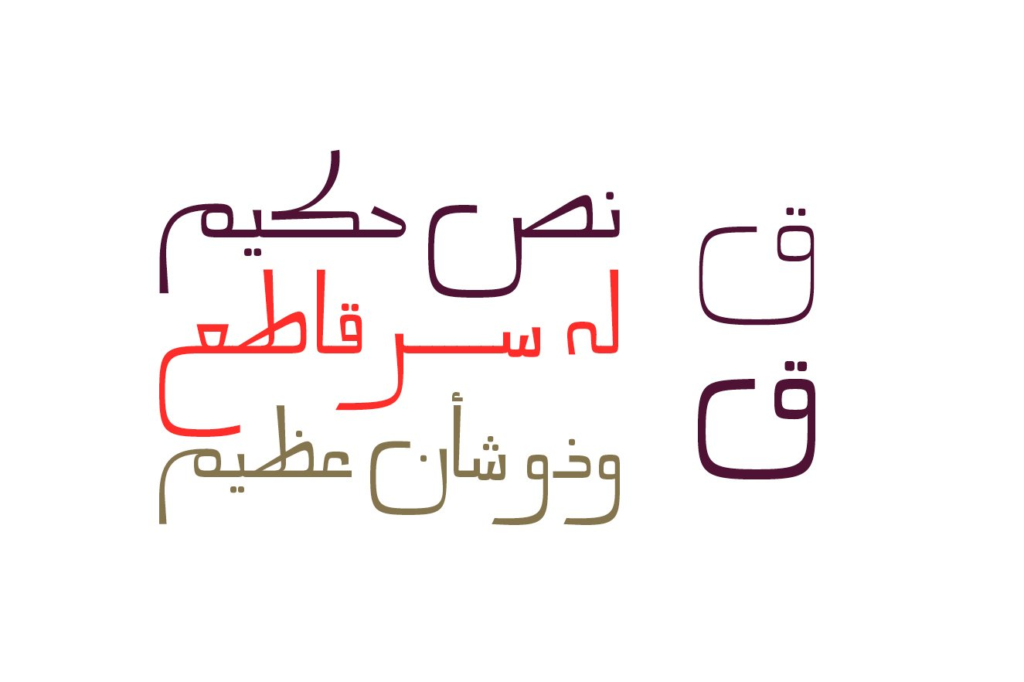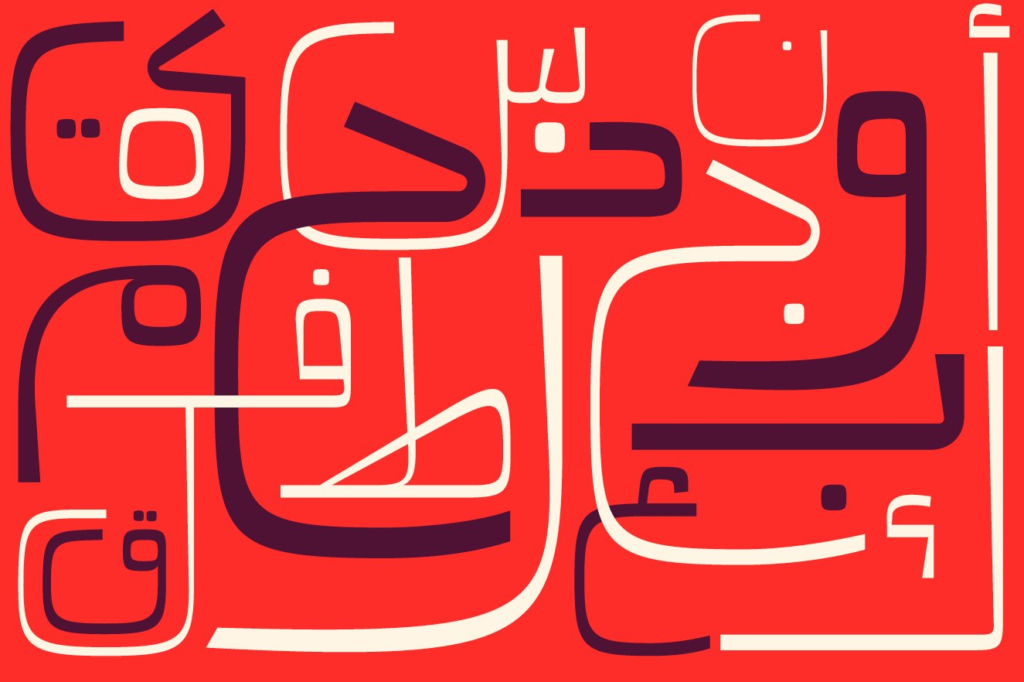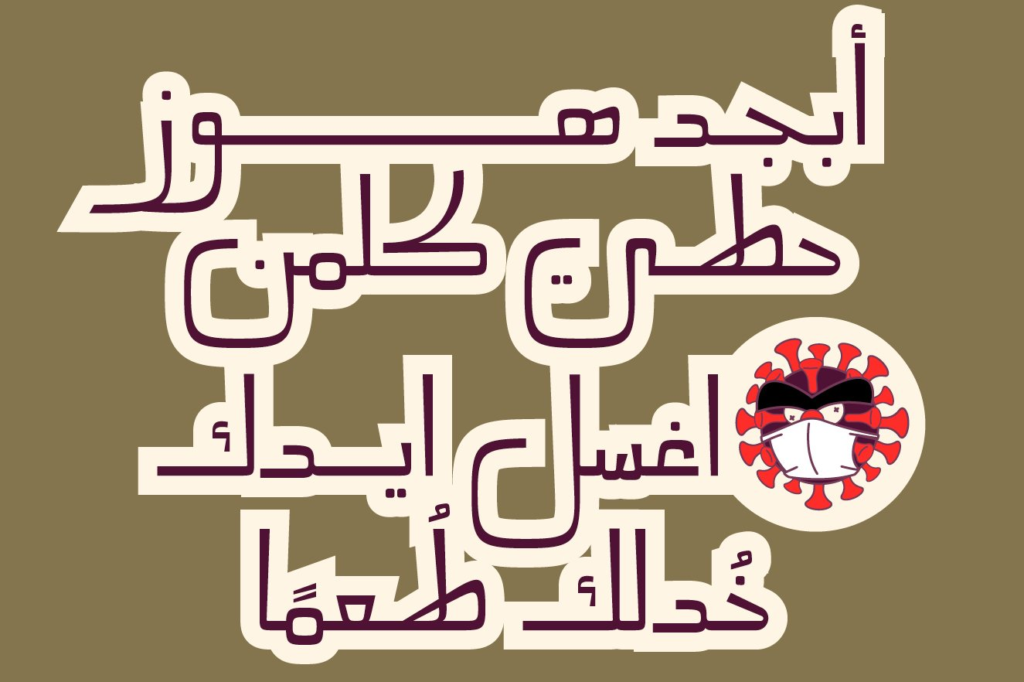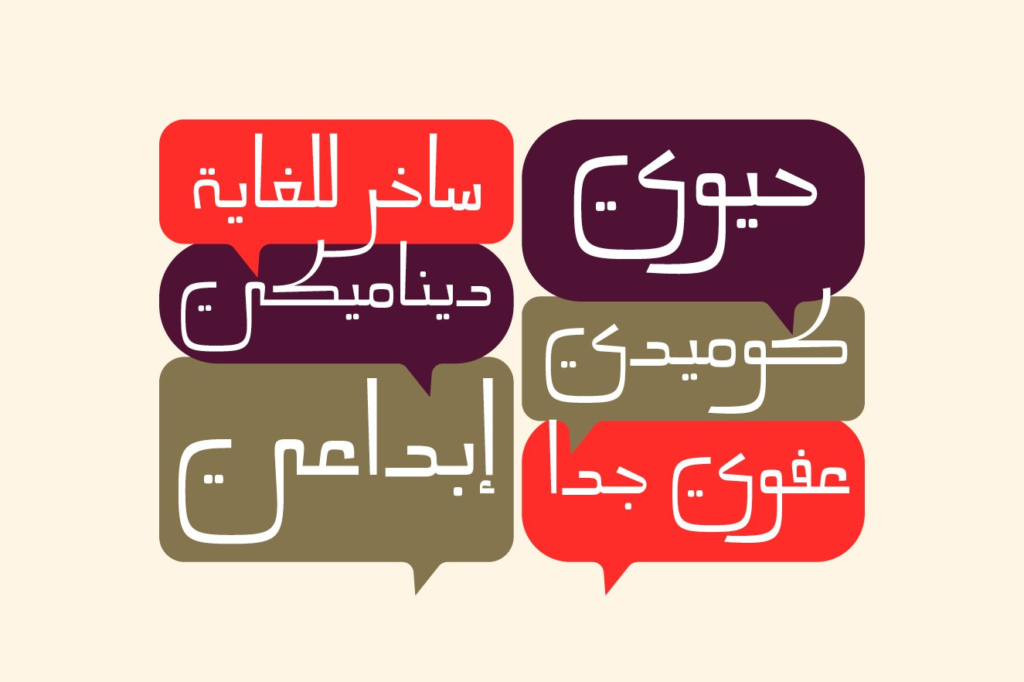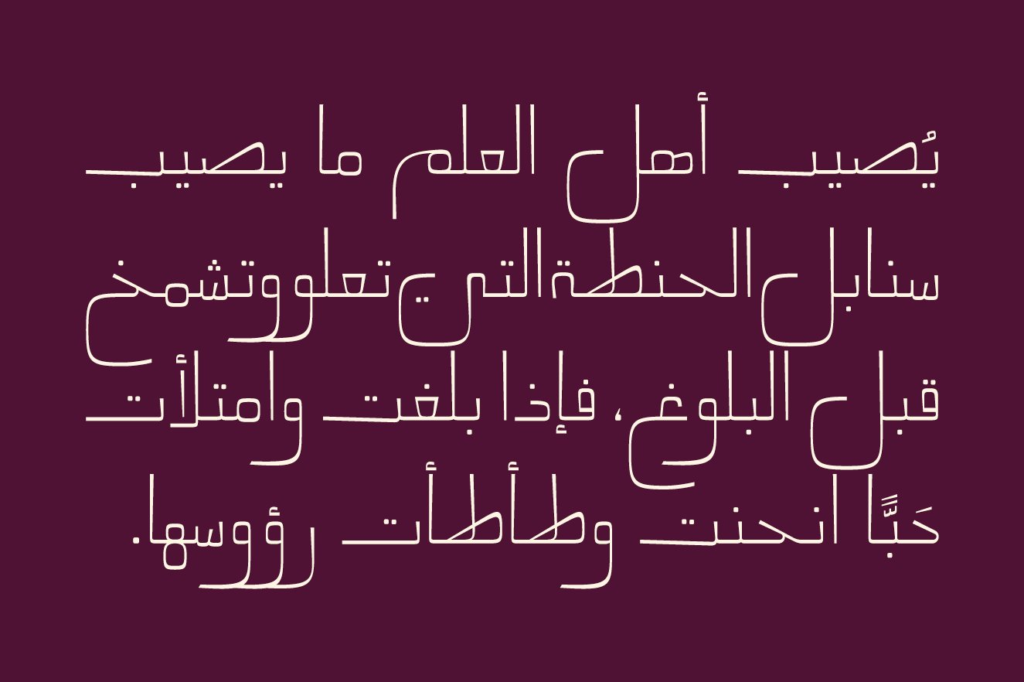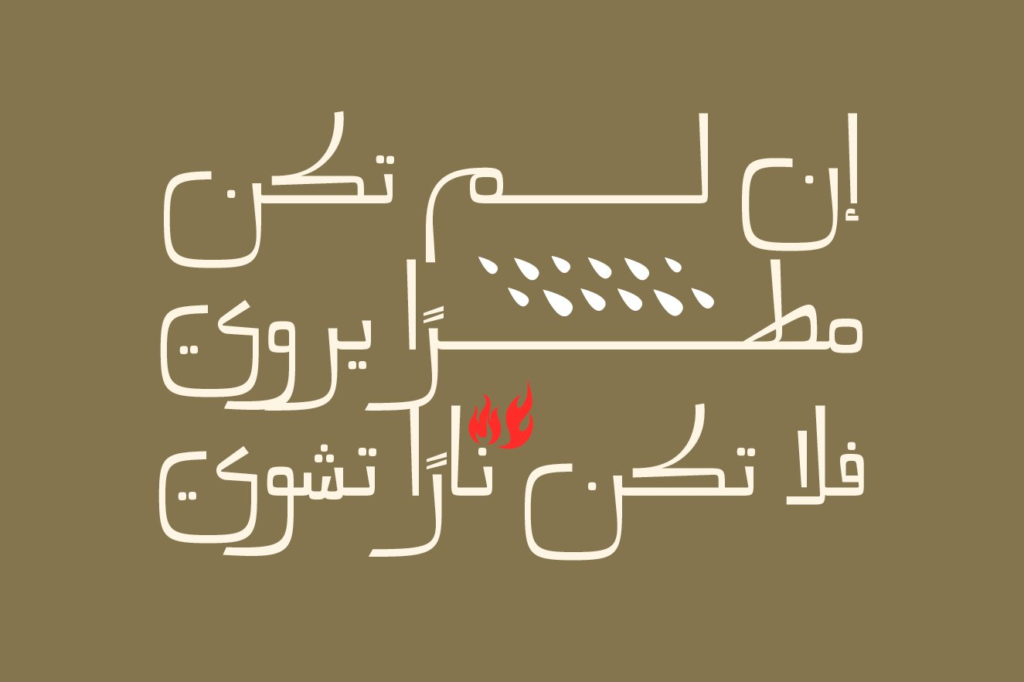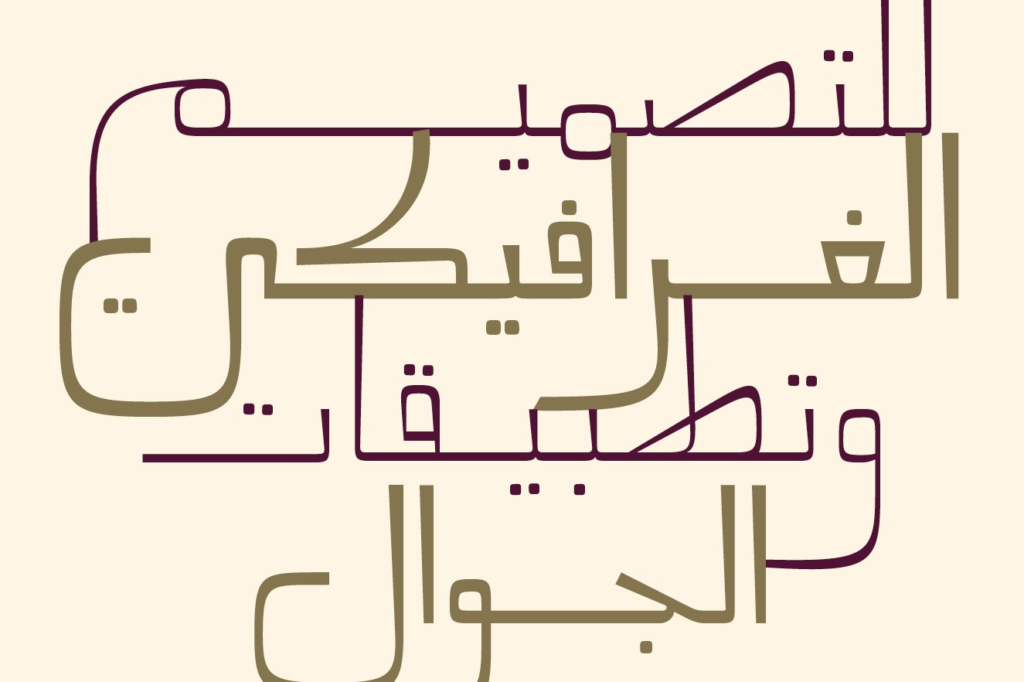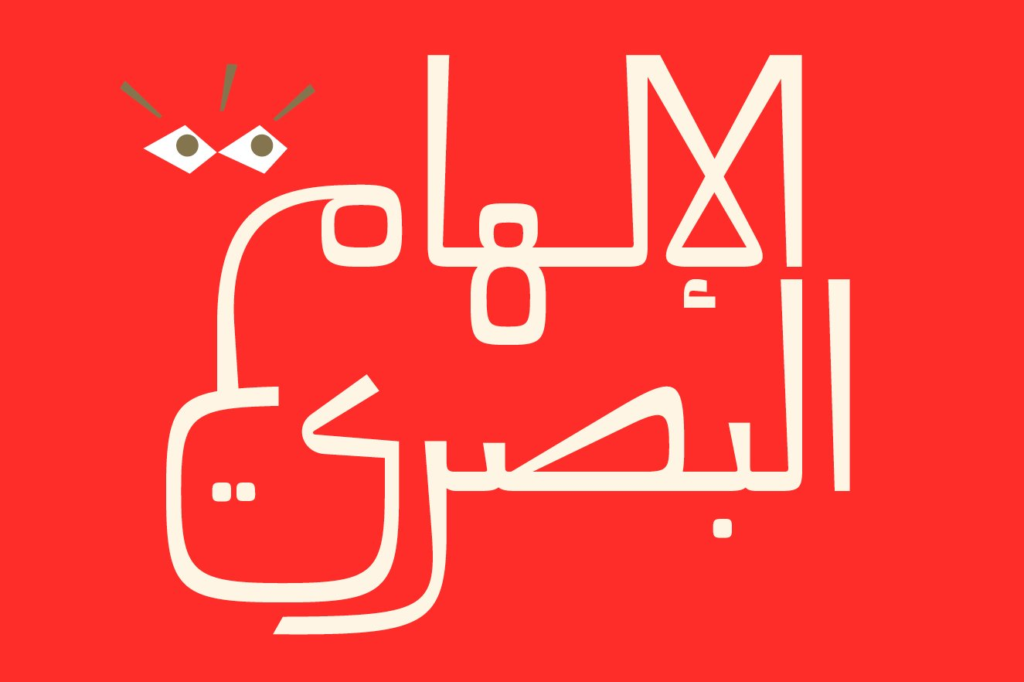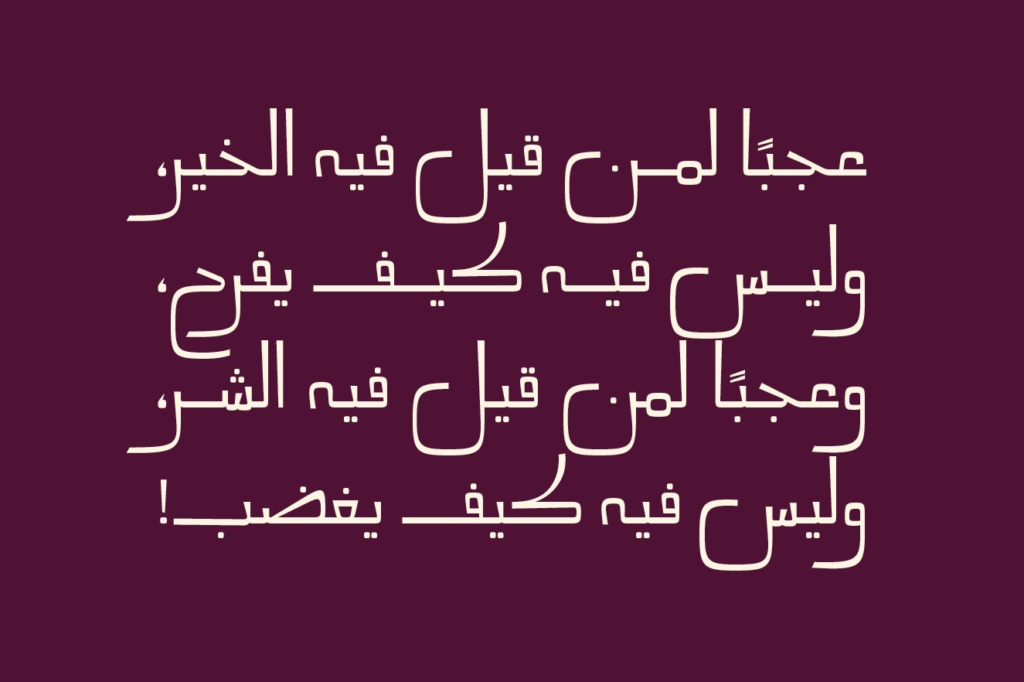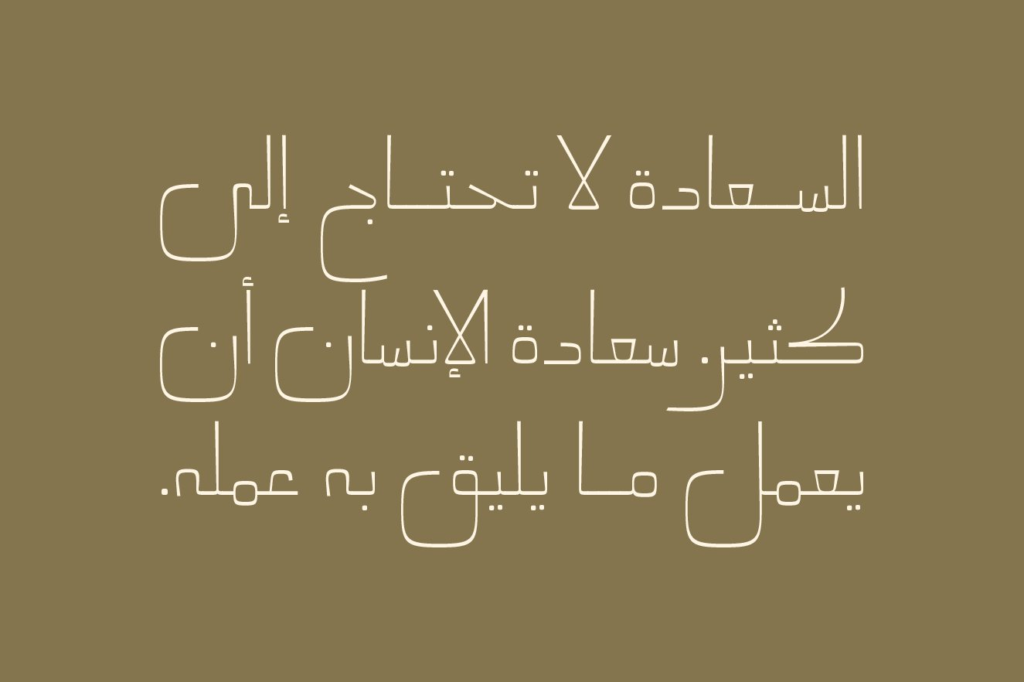
Mareh Arabic Typeface
Mareh (the Arabic word for ‘Cheerful’) is an Arabic display font that features prolonged-squared letterform structure. Mareh typeface consists of two weights (Regular and Bold). It suits various range of creative projects including web, publication, packaging, branding and mobile applications.
Marah—meaning “joy” or “happiness” in Arabic—is a thoughtfully crafted display typeface that brings architectural elegance to Arabic typography. With its unique elongated, rectangular letterforms, this font offers designers a fresh, contemporary tool for creating memorable work that stands out.
Design Characteristics:
- Long, rectangular letter structure
- Distinctive architectural proportions
- Clean, geometric display presence
- Contemporary aesthetic with unique character
- Excellent visibility at various sizes
Font Family – 2 Weights:
- Regular: Elegant standard weight for versatile use
- Bold: Strong presence for emphasis and headlines
- Complete flexibility for design hierarchy
Arabic Script:
- Complete Arabic character set in both weights
- Full support for diacritics and marks
- Proper character connections and positioning
- Consistent rectangular styling across all letters
- Optimized for display applications
- Web Design: Distinctive digital typography
- Publishing: Book covers, magazines, editorial
- Packaging: Unique product presentation
- Branding: Memorable brand identities
- Mobile Applications: Clean interface design
- Logos: Distinctive wordmarks
- Posters: Eye-catching promotional materials
- Signage: Architectural displays
- Advertising: Campaigns with unique visual voice
- Unique Structure: Long, rectangular letterforms
- Two Weights: Regular and bold for design flexibility
- Contemporary Appeal: Fresh, modern aesthetic
- Versatile Application: Perfect for creative projects
Key Features of Marah Font:
- 2 weights: Regular and Bold
- Long, rectangular letter structure
- Complete Arabic character sets in both weights
- Distinctive architectural display presence
- Perfect for web, publishing, packaging, branding, and mobile